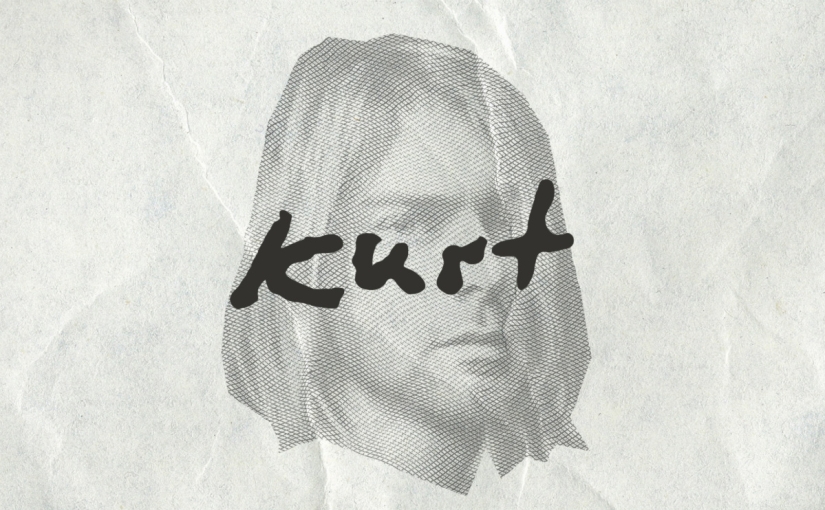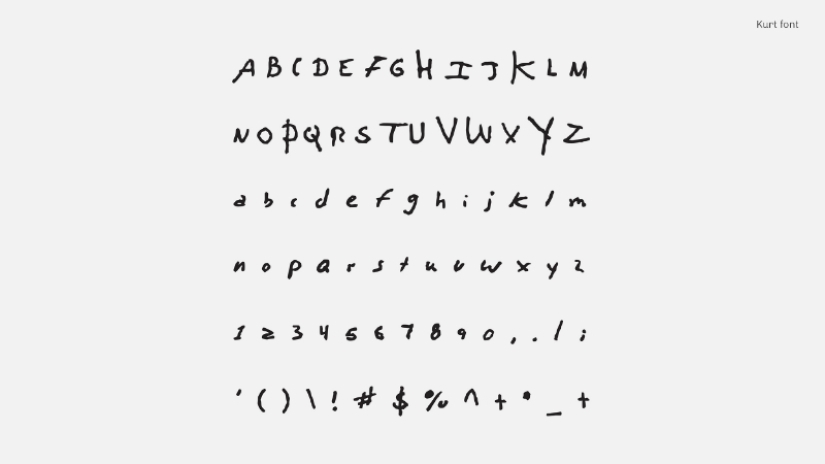
Type like teen spirit: Artists made computer fonts from the handwriting of Kurt Cobain, John Lennon and David Bowie
An art project called Songwriters Fonts offers users and fans of legendary artists to download fonts that the authors of the project modeled based on the real handwriting of their idols, among whom were Kurt Cobain, John Lennon and David Bowie.
The authors studied handwritten notes and notes of musicians in notebooks to identify patterns in the spelling of letters and even punctuation marks and create a digital handwriting that exactly repeats how musicians wrote on paper. The project is non-commercial, so fonts can be downloaded for free.
Another tool for copying the already most imitated musicians? Maybe. But you can play a little with creativity — print a postcard to a friend or write your own text to music.
Kurt Cobain's notes, according to which his handwriting was modeled
, Kurt wrote in these letters
And this is probably how the first verse and chorus of the song Smells Like Teen Spirit looked in Kurt's notebook:
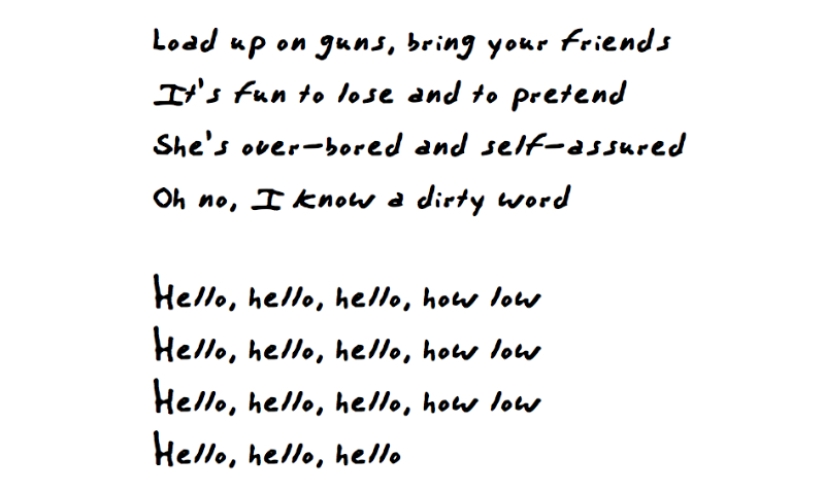
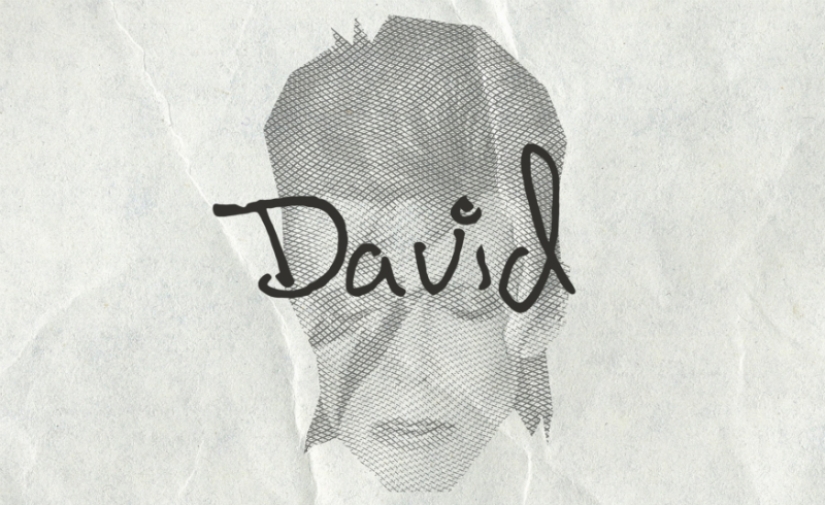
Notebooks with David Bowie's notes used to create
the Full Bowie Alphabet font
Imbued with the spirit of Bowie, you can rewrite the dreamy chorus from Space Oddity in his handwriting:
Lennon 's RecordingsTry to guess the song: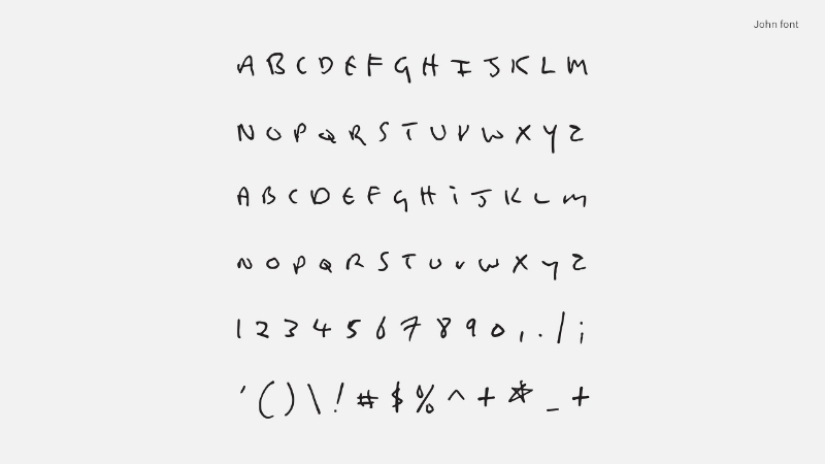